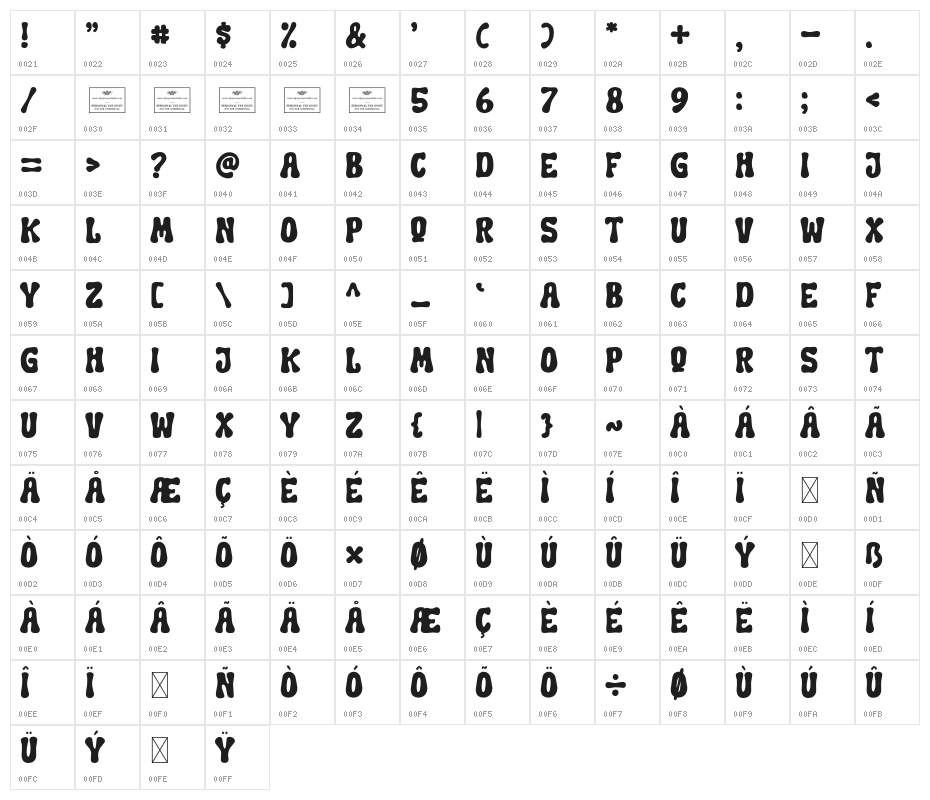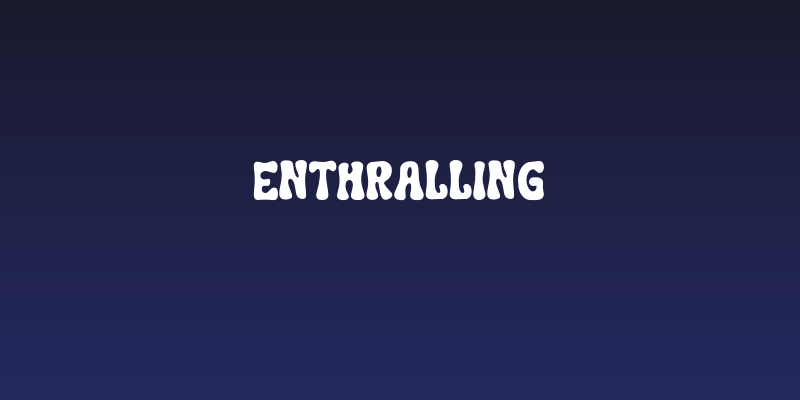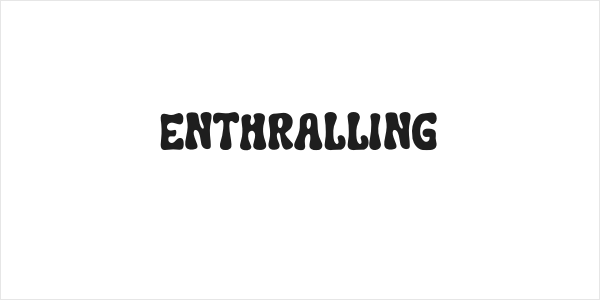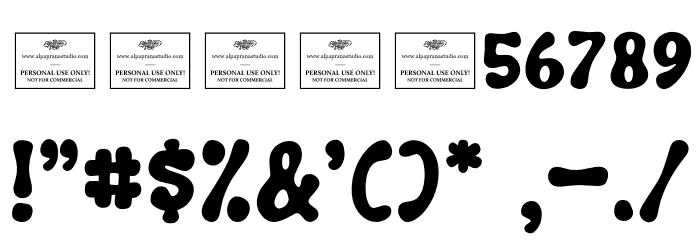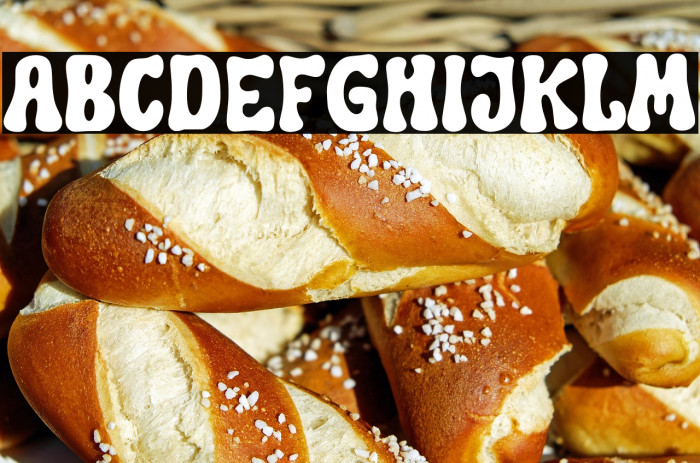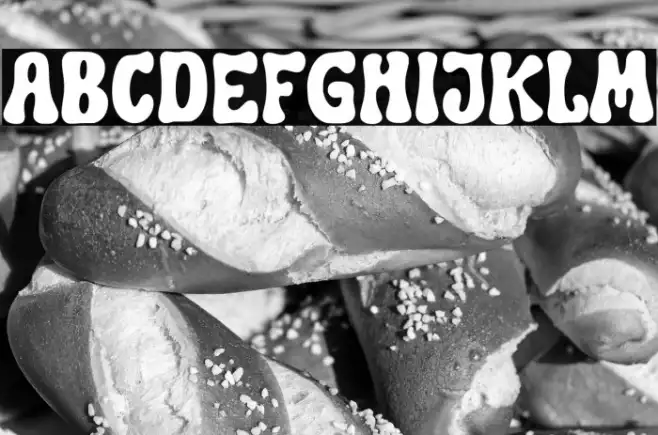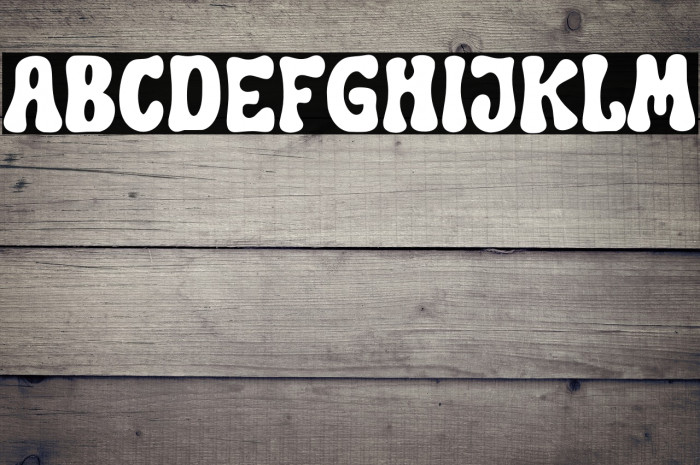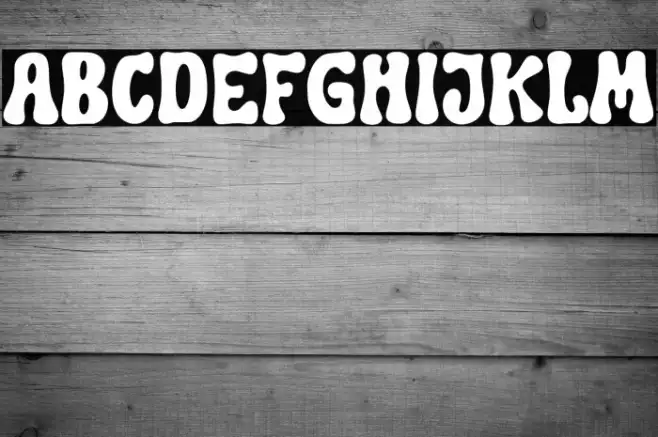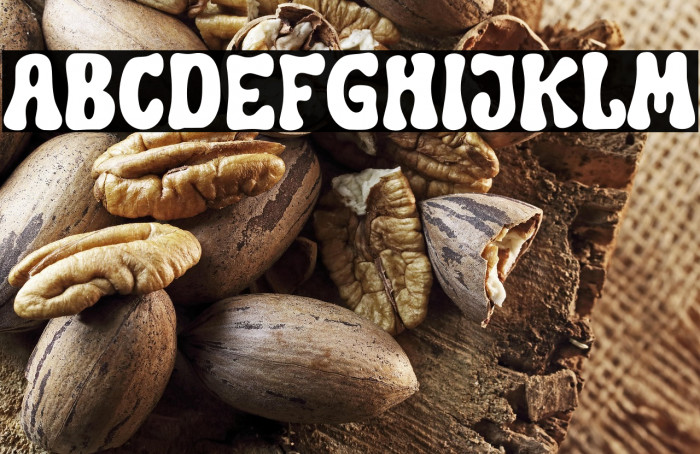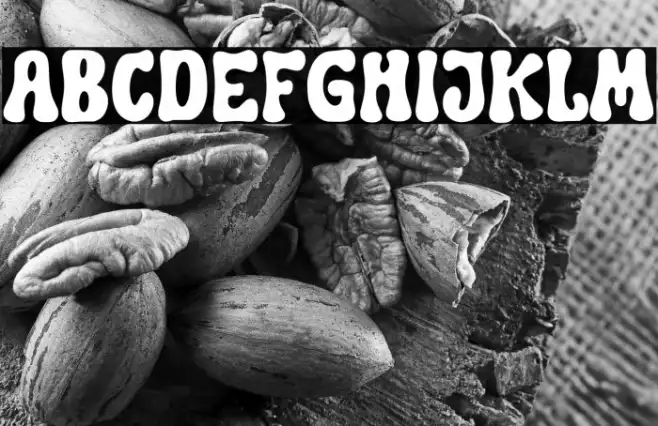
Enthralling Font
Enthralling Description
This font features a bold and playful design with rounded, bulbous letterforms that convey a sense of fun and whimsy. The characters are thick and substantial, with a consistent stroke width that gives them a solid, impactful appearance. The overall style is reminiscent of retro or vintage designs, making it ideal for projects that require a touch of nostalgia or a playful aesthetic. The uppercase and lowercase letters maintain a uniform style, ensuring readability while adding a unique flair. The numbers and special characters are equally bold, maintaining the font's cohesive look.
| Proposed Projects | Perfect for children's books, playful branding, retro-themed posters, and eye-catching headlines. |